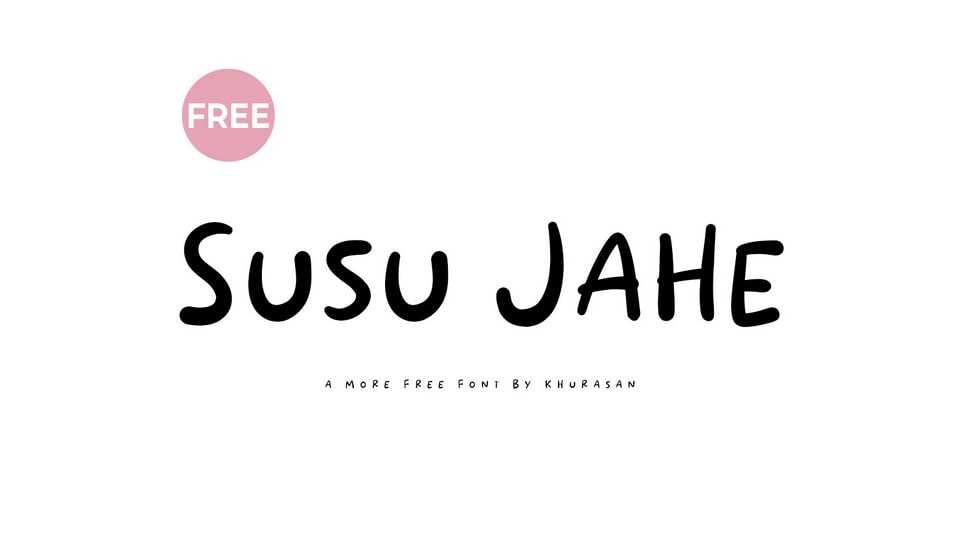
Download Susu Jahe font, a playful and cute handwritten comic typeface that captures the essence of fun and whimsy. It features bubbly, irregular letterforms with charming details and a cheerful personality